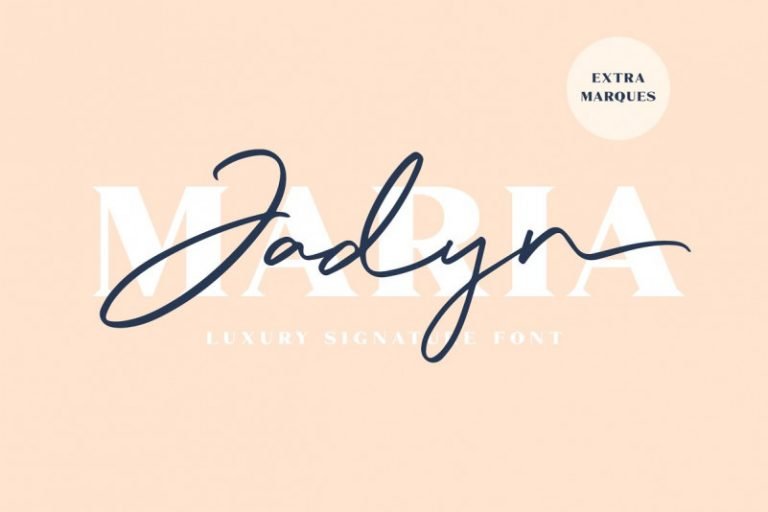
Jadyn Maria Signature Font
Introducing the hand drawn signature script font “Jadyn Maria Font” – a new signature font duo by Craft Supply Co.. Jadyn Maria – Luxury Signature Font + Extra is an handwritten script font based on the expression of real handwriting. Jadyn Maria – Luxury Signature Font + Extra will work perfectly for fashion, e-commerce brands, trend blogs, wedding boutiques or any business that wants to appear upscale and chic.